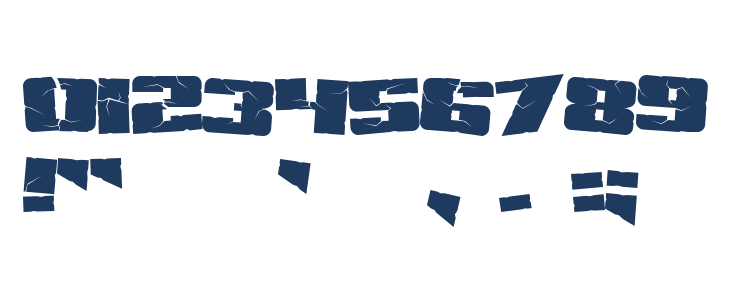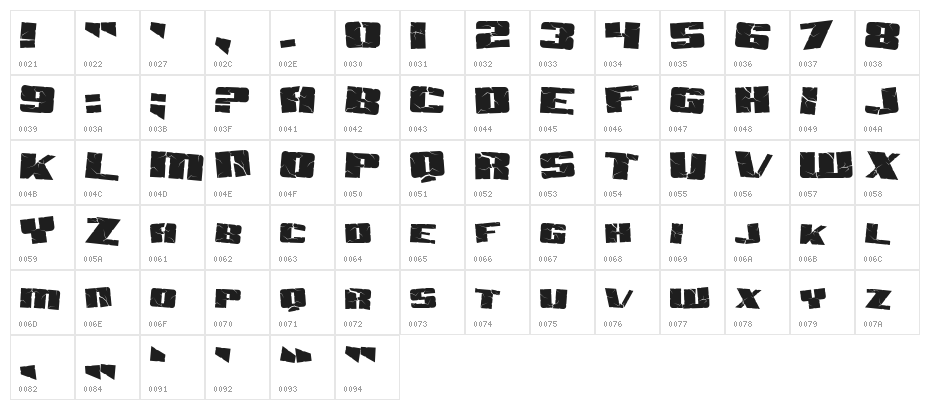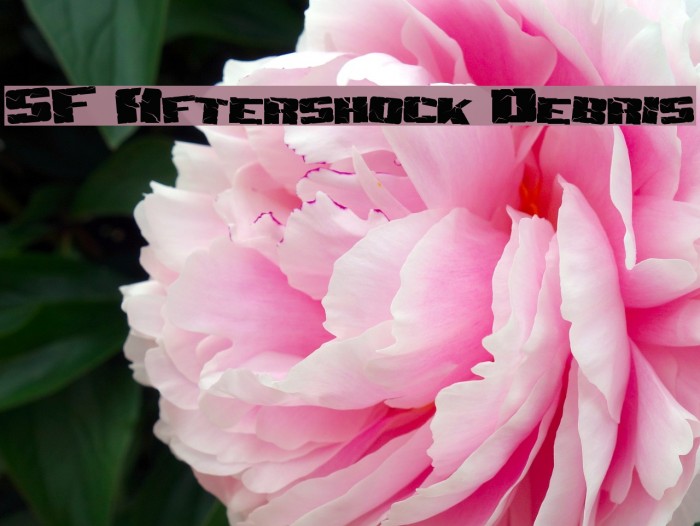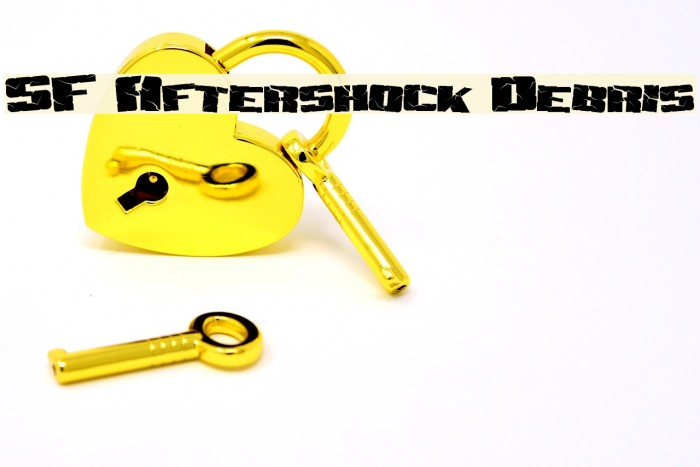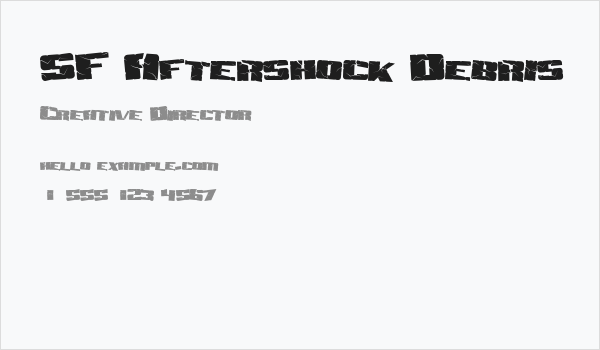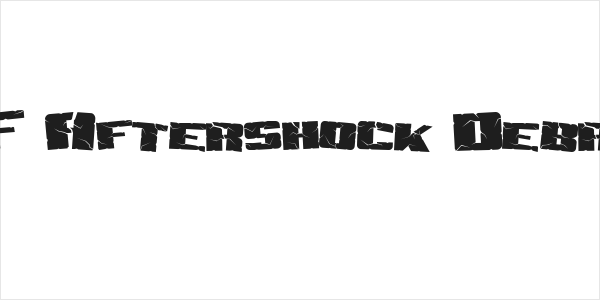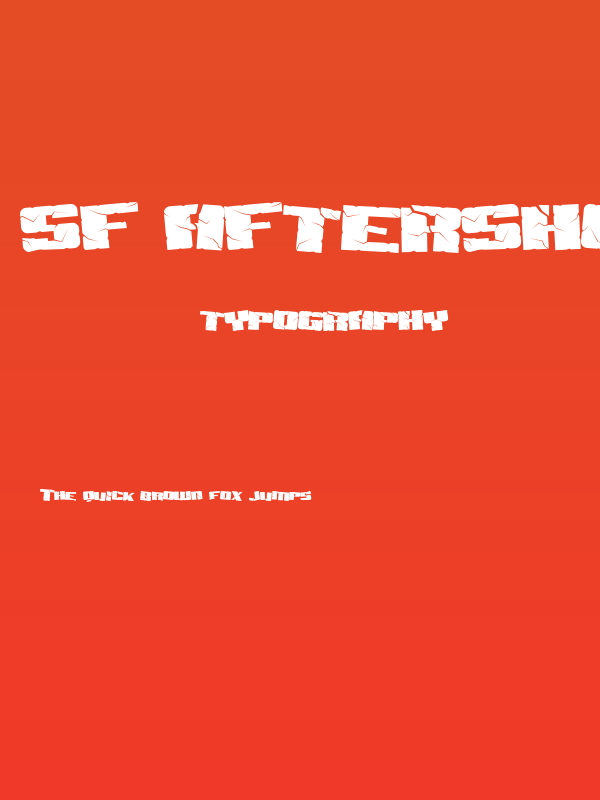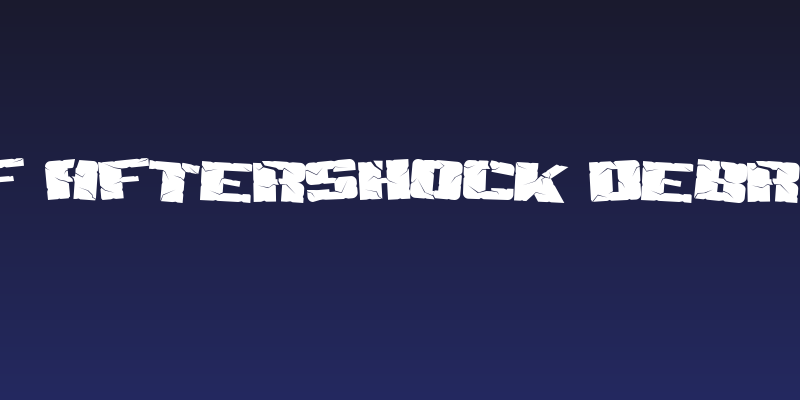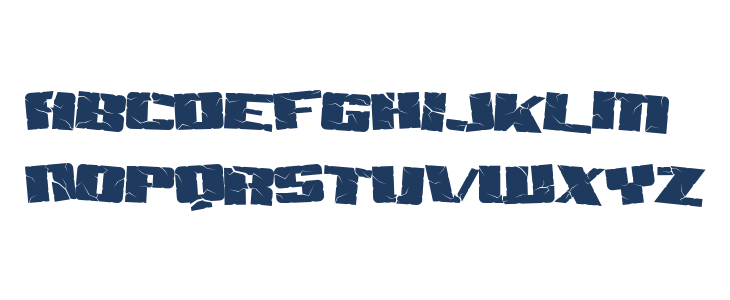
SF Aftershock Debris Font
SF Aftershock Debris Description
This font features a bold and fragmented design, reminiscent of shattered debris. Each character appears as if it has been broken into pieces and reassembled, creating a dynamic and chaotic visual effect. The letters are uppercase and lowercase, with numerals and a selection of special characters. The style is highly decorative, making it suitable for attention-grabbing headlines or artistic projects. The irregular shapes and jagged edges contribute to a sense of movement and energy, while the overall boldness ensures strong visibility.
| Proposed Projects | Ideal for use in posters, album covers, video game titles, or any project requiring a dramatic and edgy aesthetic. |